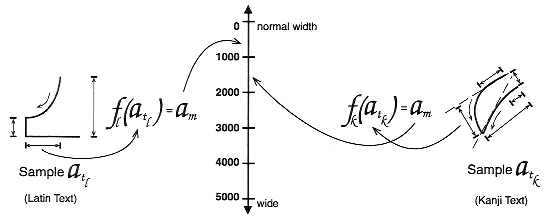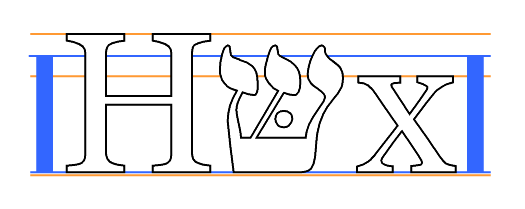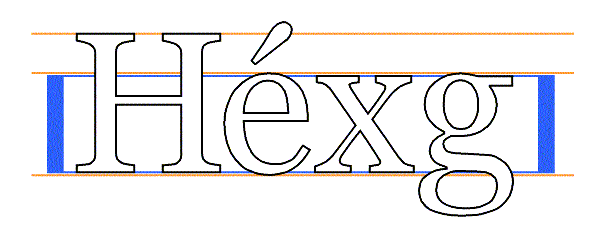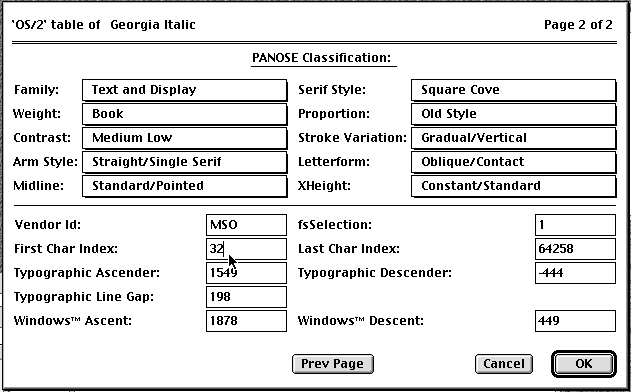
When a document's text is to be displayed visually, each character (abstract information element) must be mapped to some representation that may be drawn on the screen, paper, etc. Each of these glyphs constitutes a graphical depiction of a character. (as opposed to, for example, an aural, textual, or numerical depiction of that character) One or more characters may be depicted by one or more glyphs, in a possibly context-dependent fashion. A glyph representation is the actual artistic representation of an abstract glyph, in some typographic style, in the form of outlines or bitmaps. A font is a set of glyph representations, all observing same basic motif according to design, size, appearance, and other attributes associated with the entire set.
A visual user agent must address the following issues before actually rendering a character:
In both CSS1 and CSS2, authors specify font characteristics via a series of font properties.
What use the user agent makes of these properties differs greatly between CSS1 and CSS2. In CSS1, all fonts were assumed to be present on the client system and were identified solely by name. Alternate fonts could be specified with the properties, but beyond that, user agents had no way to suggest any other fonts (even stylistically similar fonts that the user agent had available) other than generic default fonts.
CSS2 changes all that, and allows user agents much greater liberty in selecting a font when an author's requested font is not immediately available. CSS2 improves client-side font matching, enables font synthesis and progressive rendering, and enables fonts to be downloaded over the Web.
In the CSS font model, each user agent has a "font database" at its disposition. CSS2 allows stylesheet authors to contribute towards that database. When asked to display a character with a particular font, the user agent first identifies the font in the database that "best fits" the specified font (according to the font matching algorithm) Once it has identified a font, it retrieves the font data locally or from the Web, and may display the character using those glyph representations.
In light of this simple model, we have organized the specification into two sections. The first concerns the font specification mechanism, whereby authors specify which fonts they would like to have used. The second concerns the font selection mechanism, whereby the client's user agent identifies and loads a font that best fits the author's specification.
How the user agent constructs the font database lies outside the scope of this specification since the database's implementation depends on the operating system, the windowing system, the client, etc. Similarly, this specification does not mandate how the user agent should handle error conditions such as when none of the desired fonts are available.
The first phase of the CSS font mechanism concerns how authors specify which fonts should be used by a client user agent. Unfortunately, there exists no well-defined and universally accepted taxonomy for classifying fonts, and terms that apply to one font family may not be appropriate for others. For example, the term 'italic' is commonly used to label slanted text, but slanted text may also be labeled Oblique, Slanted, Incline, Cursive or Kursiv.
Since it is not possible to provide authors with a perfect font naming scheme, CSS has authors refer to pertinent characteristics of a font through a series of properties. The property values form the basis of the user agent's font selection.
CSS2 specifies fonts by using the following properties:
On all properties except 'font-size', 'em' and 'ex' length values refer to the font size of the current element. For 'font-size', these length units refer to the font size of the parent element. Please consult the section on length units for more information.
For information about the classification of fonts in general, please consult the section on font descriptors.
This property specifies a prioritized list of font family names and/or generic family names. To deal with the problem that a single font may not be enough to display all the characters in a document, or even a single element, this property allows authors to specify a list of fonts, all of the same style and size, that are tried in sequence to see if they contain a glyph for a certain character. This list is called a font set .
For example, text that contains English text mixed with mathematical symbols may need a font set of two fonts, one containing letters and digits, the other containing mathematical symbols. Here is an example of a font set suitable for a text that is expected to contain text with Latin characters, Japanese characters, and mathematical symbols:
BODY { font-family: Baskerville, "Heisi Mincho W3", Symbol, serif }
The characters available in the Baskerville font (a font with only Latin characters) will be taken from that font, Japanese will be taken from Heisi Mincho W3, and the mathematical symbols will come from Symbol. Any other characters will (hopefully) come from the generic font family 'serif'. The 'serif' font family will also be used if one or more of the other fonts is unavailable.